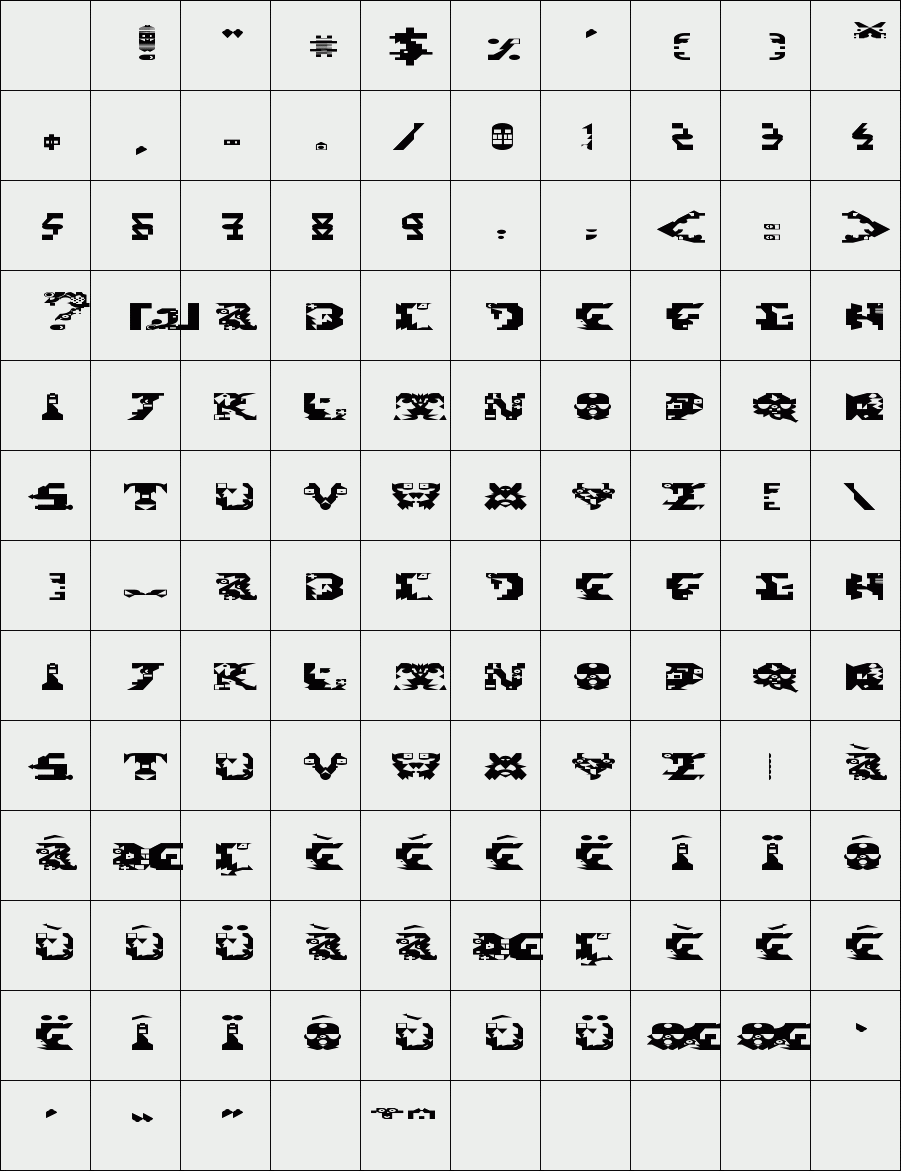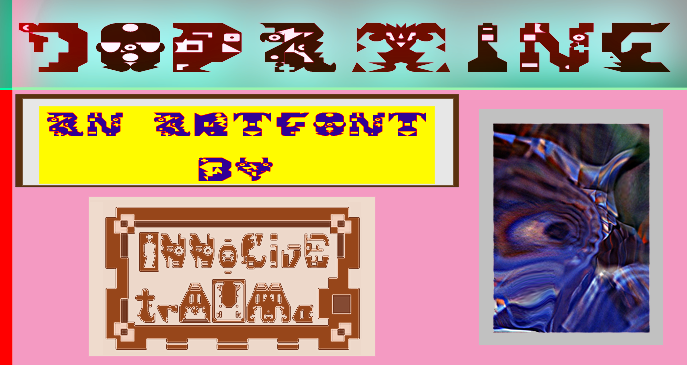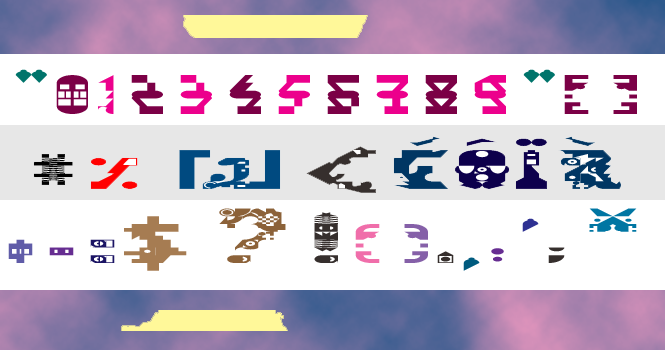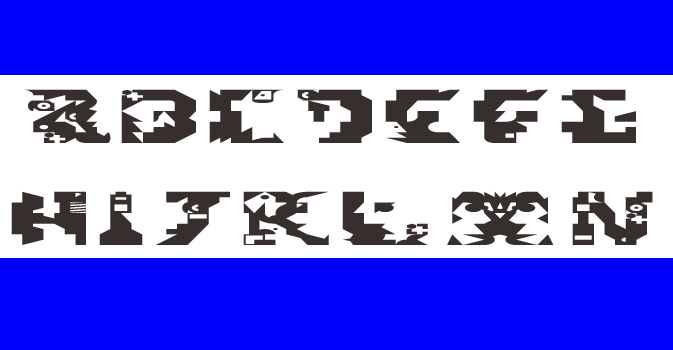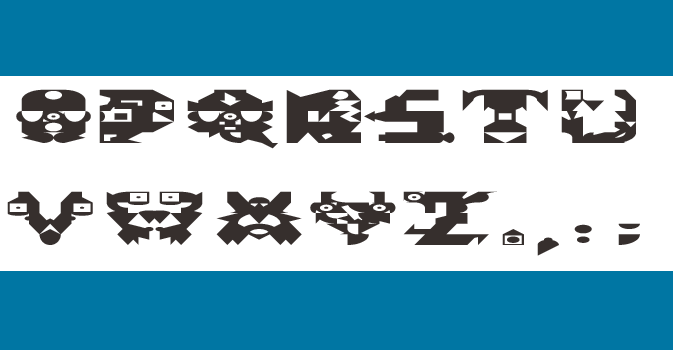
trAUMa 107 / Dopamine
"Dopamine", like all the "trAUMa" series, works at the frontier between Art & Type Design, Figuration & Abstraction, each font is a comprehensive world in which every glyph is a "living" entity. But put together they can produce your messages in the most accurate way.